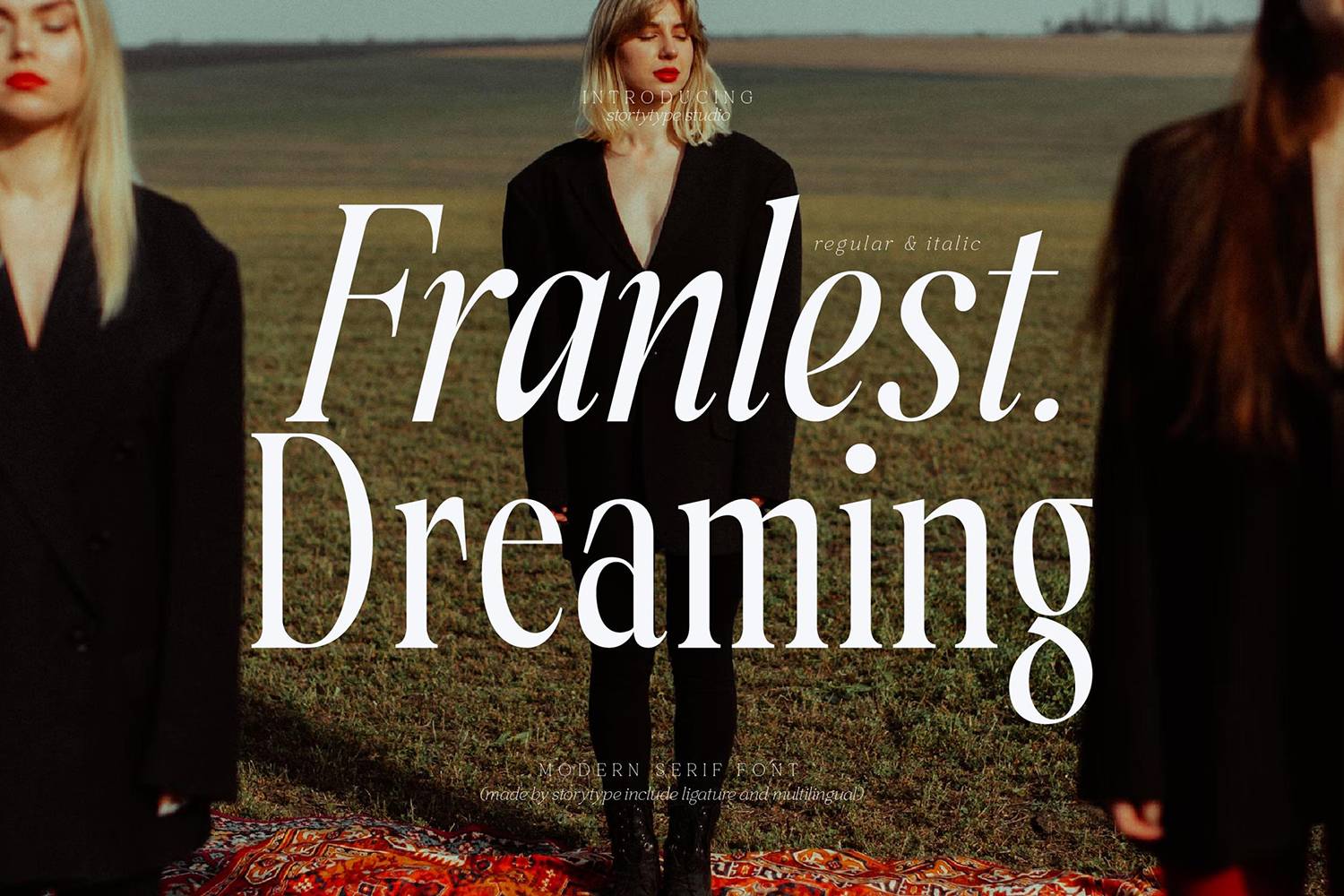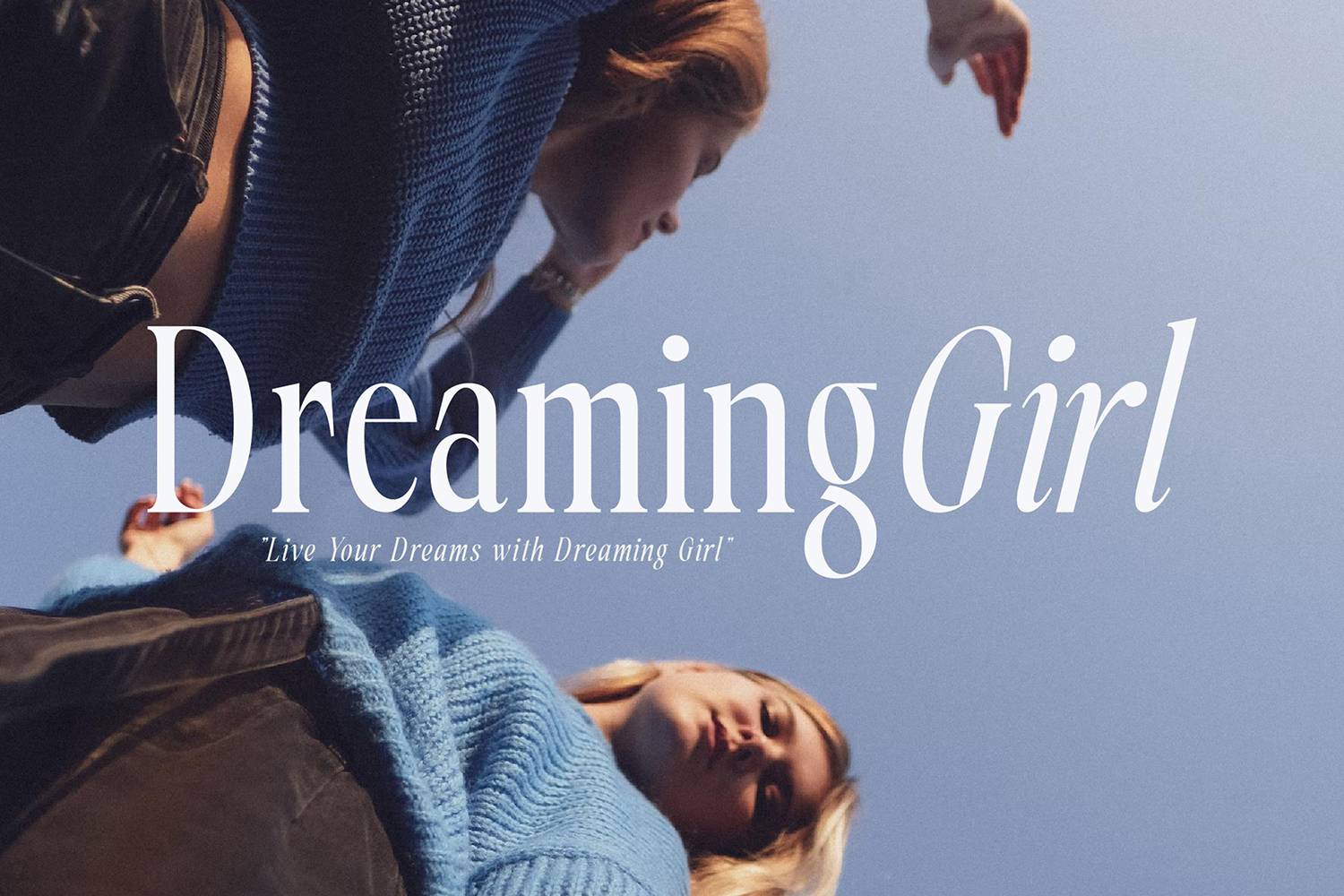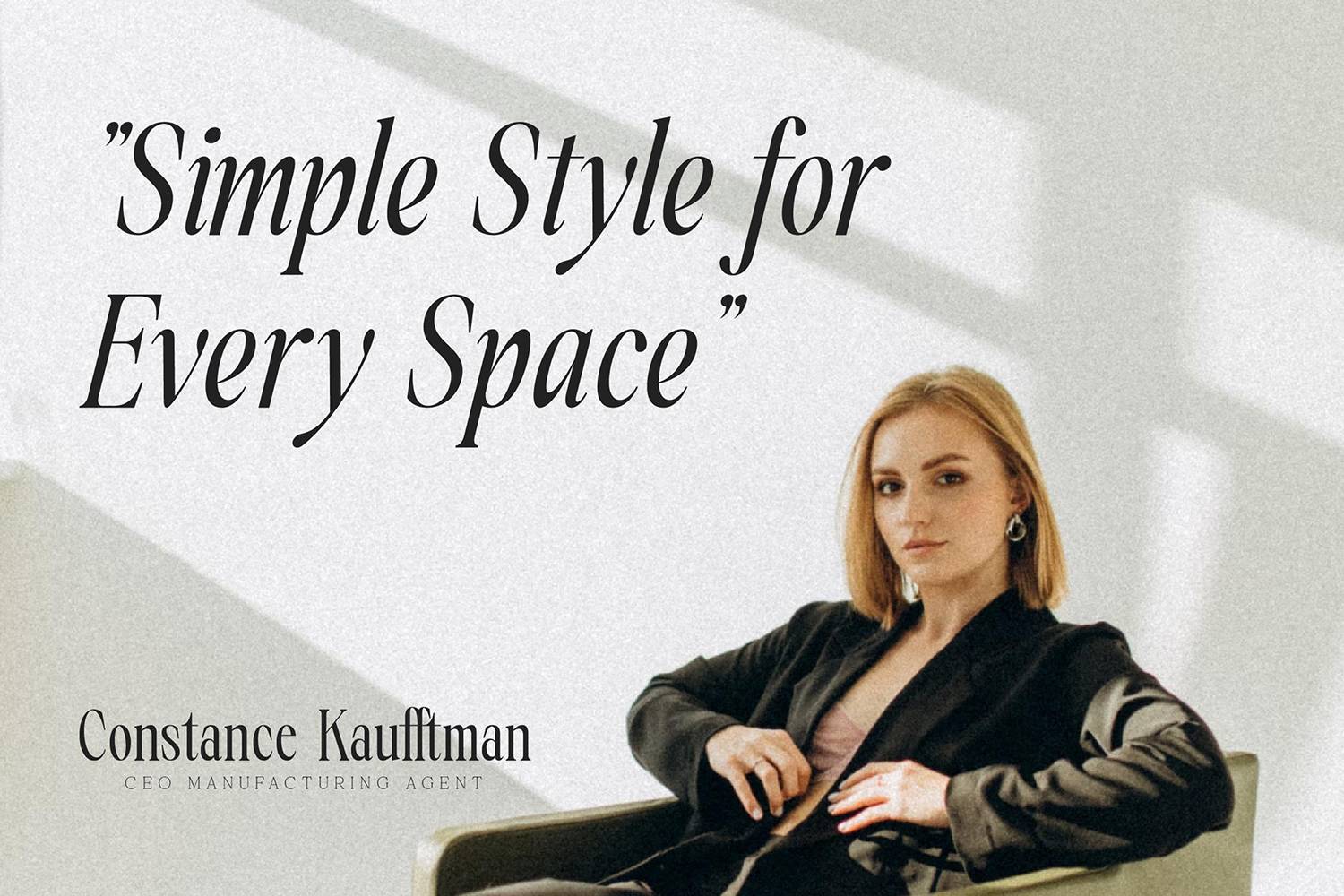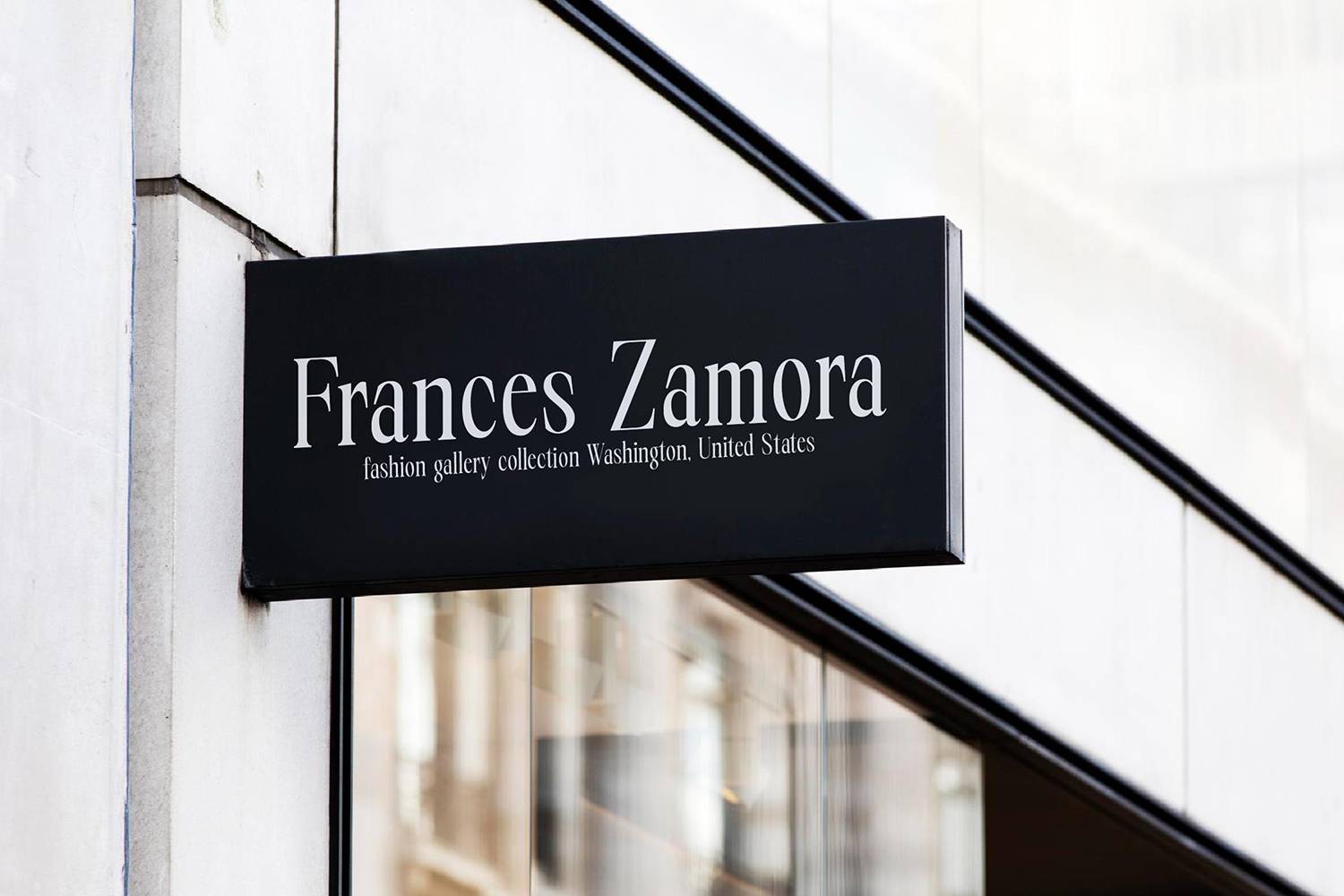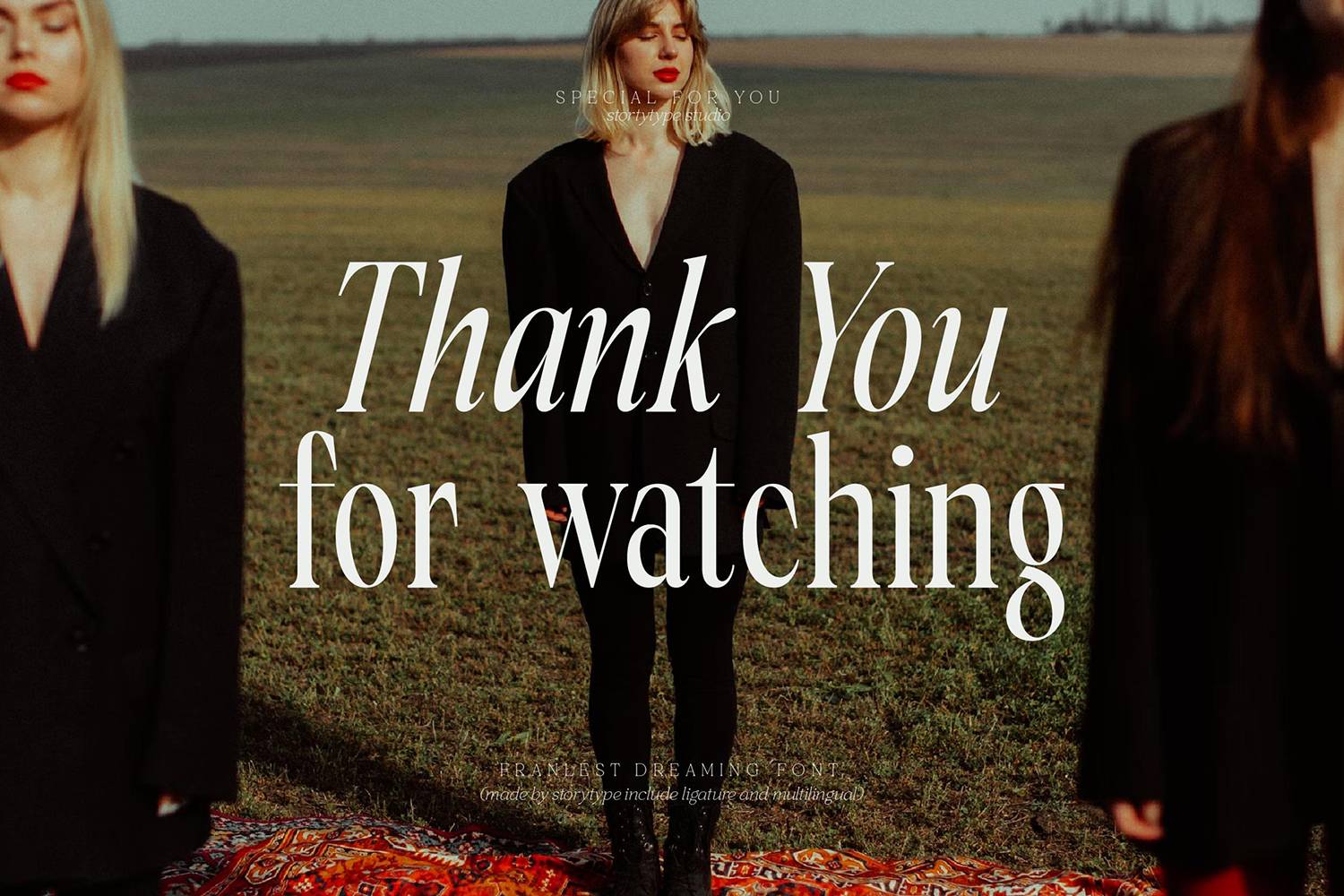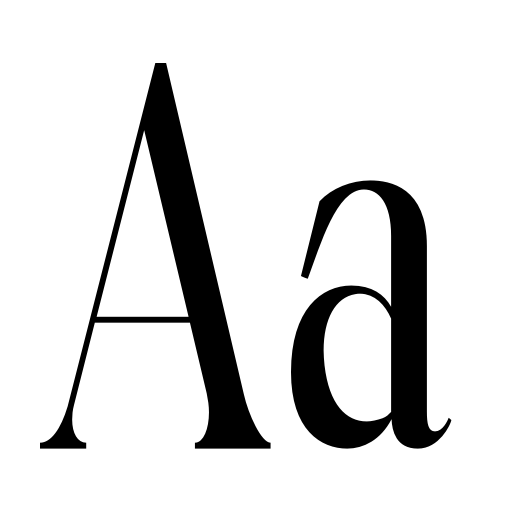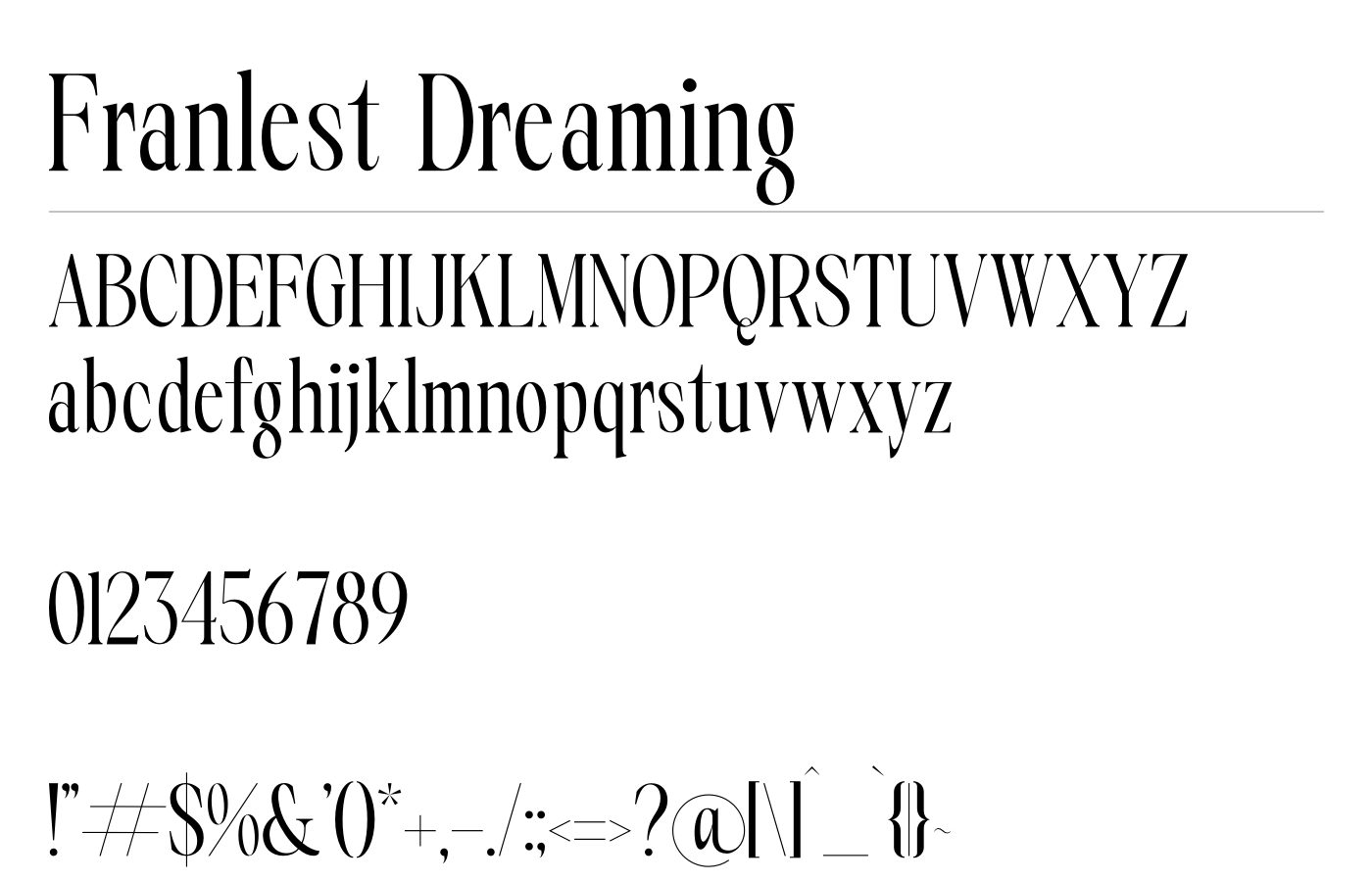
Franlest Dreaming is an elegant serif font with a tall, narrow structure and high contrast between thick and thin strokes, giving it a refined, sophisticated appearance. Its delicate serifs and distinctive letterforms, such as the curled tail of the "Q" and the unique ampersand, lend it a vintage yet stylish personality, making it ideal for luxury branding, editorial headlines, and fashion-related designs where a touch of classic charm is desired. This font works best in large sizes where its fine details can shine, adding an air of exclusivity and elegance to logos, magazines, and packaging.
Franlest Dreaming Font
About Franlest Dreaming Font